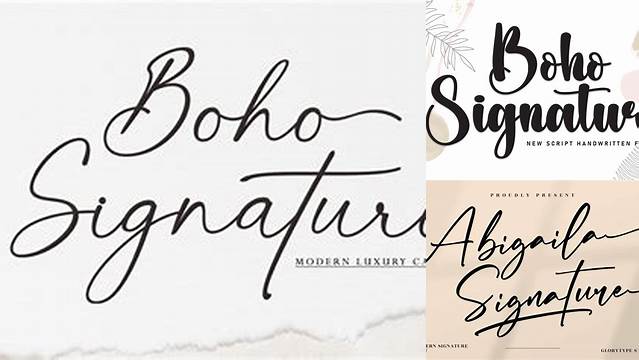
Free Boho Signature Font Downloads For Stunning Designs
Are you looking to infuse your designs with a touch of free-spirited elegance? Look no further! Boho signature fonts are the perfect way to add a personal and artistic flair to your projects. Whether you're designing wedding invitations, crafting logos, or creating social media graphics, a beautiful boho font can make all the difference. In this comprehensive guide, we'll explore the world of boho signature fonts, where to find them for free, and how to use them effectively in your designs. Let's dive in and discover the magic of boho fonts!
What is a Boho Signature Font?
Boho signature fonts capture the essence of bohemian style – think relaxed, artistic, and a little bit unconventional. These fonts often feature flowing lines, unique letterforms, and a handwritten feel, giving them an effortlessly chic and personal touch. The term “boho,” short for bohemian, evokes a lifestyle characterized by artistic expression and individuality. This aesthetic translates beautifully into typography, where boho fonts stand out for their distinctiveness and charm. Guys, if you want your work to exude creativity and authenticity, incorporating a signature boho font is an excellent choice.
What sets these fonts apart is their ability to mimic the natural strokes of handwriting. Unlike more rigid, structured fonts, boho signature fonts have a fluidity that feels organic and warm. They often include stylish swashes, ligatures, and alternate characters, which provide designers with a wealth of options for customization. This versatility makes them ideal for a variety of applications, from branding to invitations, where a personal touch is highly valued. Boho fonts bridge the gap between classic elegance and modern free-spiritedness, making them a favorite among designers and creatives.
The aesthetic appeal of boho signature fonts lies in their ability to convey emotion and personality. Each curve and flourish tells a story, adding depth and character to the overall design. This is why they are so popular in branding for businesses that want to project a sense of authenticity and connection with their audience. Whether you're designing a logo for a boutique, a blog header for a lifestyle website, or a poster for a music festival, a boho font can help you communicate your brand's unique identity. The handcrafted feel of these fonts creates an intimate, approachable vibe that resonates with audiences seeking something genuine and heartfelt.
Where to Find Free Boho Signature Fonts
MyFonts Free Fonts: While MyFonts is primarily a marketplace for premium fonts, they also offer a selection of free fonts that are worth exploring. These freebies often include high-quality boho fonts that are perfect for adding a touch of elegance to your designs. Keep an eye on MyFonts' free section, as they frequently update their offerings. The fonts available here are often of professional quality, making them a valuable resource for designers.
2. Free Font Downloads from Design Blogs
Many design blogs and creative websites offer free font downloads as part of their resources. These fonts are often created by independent designers and can be a great way to discover unique and stylish boho signature fonts. Design blogs are fantastic sources because they often curate fonts that align with current design trends, ensuring you're getting a font that feels fresh and relevant.
- Look out for blog posts that feature font roundups or freebie collections. These articles often include a selection of boho fonts that you can download directly from the blog or the designer's website. Some design blogs even offer exclusive free fonts created by their contributors, giving you access to typefaces you won't find anywhere else. Subscribing to design blog newsletters can also keep you updated on the latest free font offerings.
Boho signature fonts are a fantastic way to infuse your designs with personality and style. By understanding what these fonts are, where to find them for free, and how to use them effectively, you can elevate your projects and create stunning visuals. Remember to always check the licensing terms before using a free font and to pair it with simpler fonts for optimal readability. So guys, go ahead and experiment with different boho fonts and discover the perfect one for your next project! With their unique charm and free-spirited aesthetic, boho fonts are sure to make your designs stand out from the crowd. Happy designing!